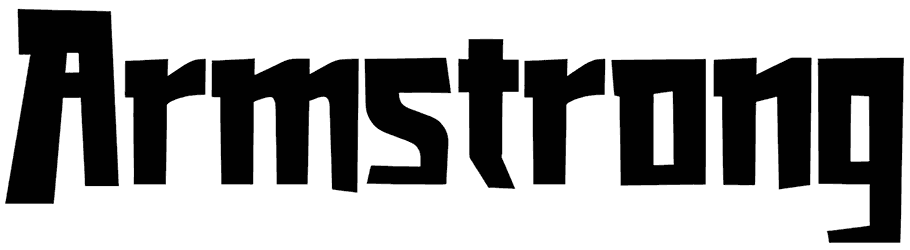
Armstrong Font
Armstrong is a wonderful font in that all its characters are designed in three distinctive styles, thus broadening your horizons in the middle of creating artwork such as video game posters, digital banners, brochures, menus, or web pages.
If you want to take a step forward in your professional career, never overlook a masterpiece like Armstrong that carries a sense of modernity, drama, momentum, and innovation.